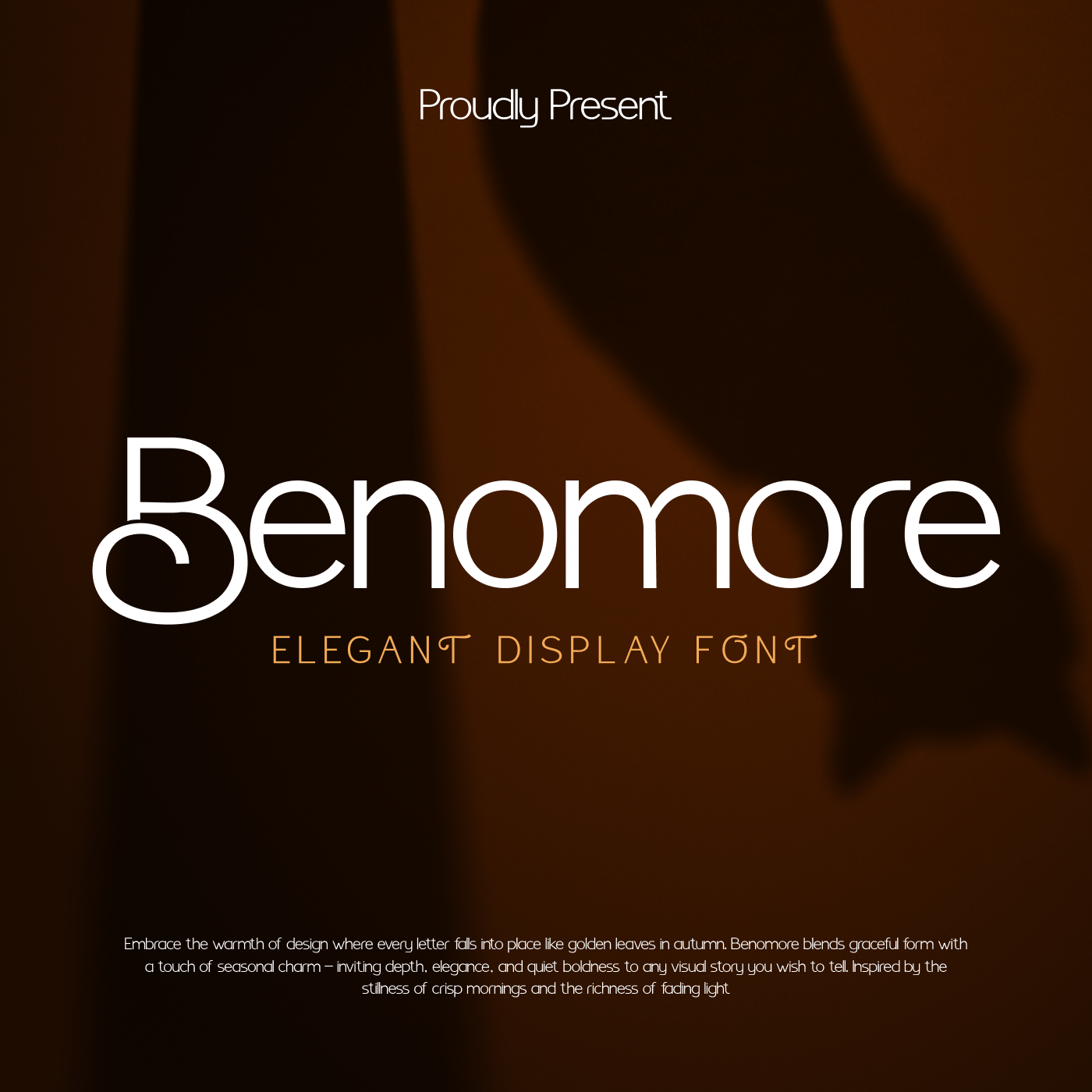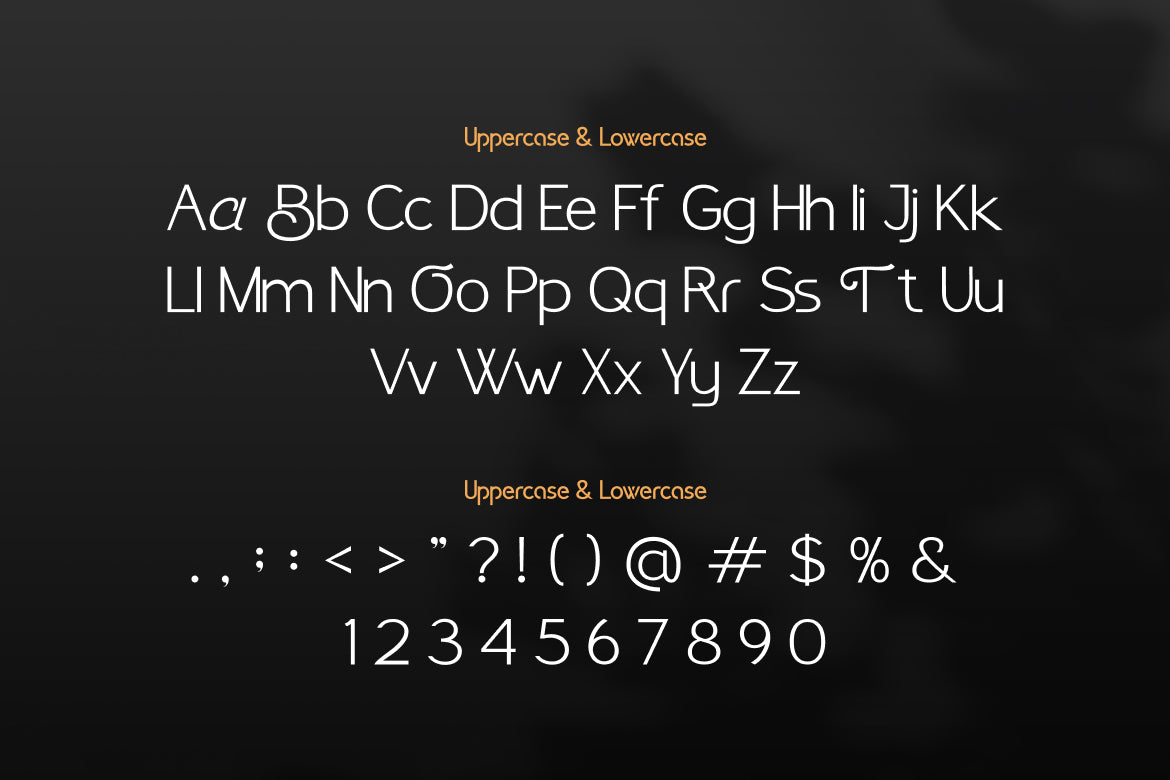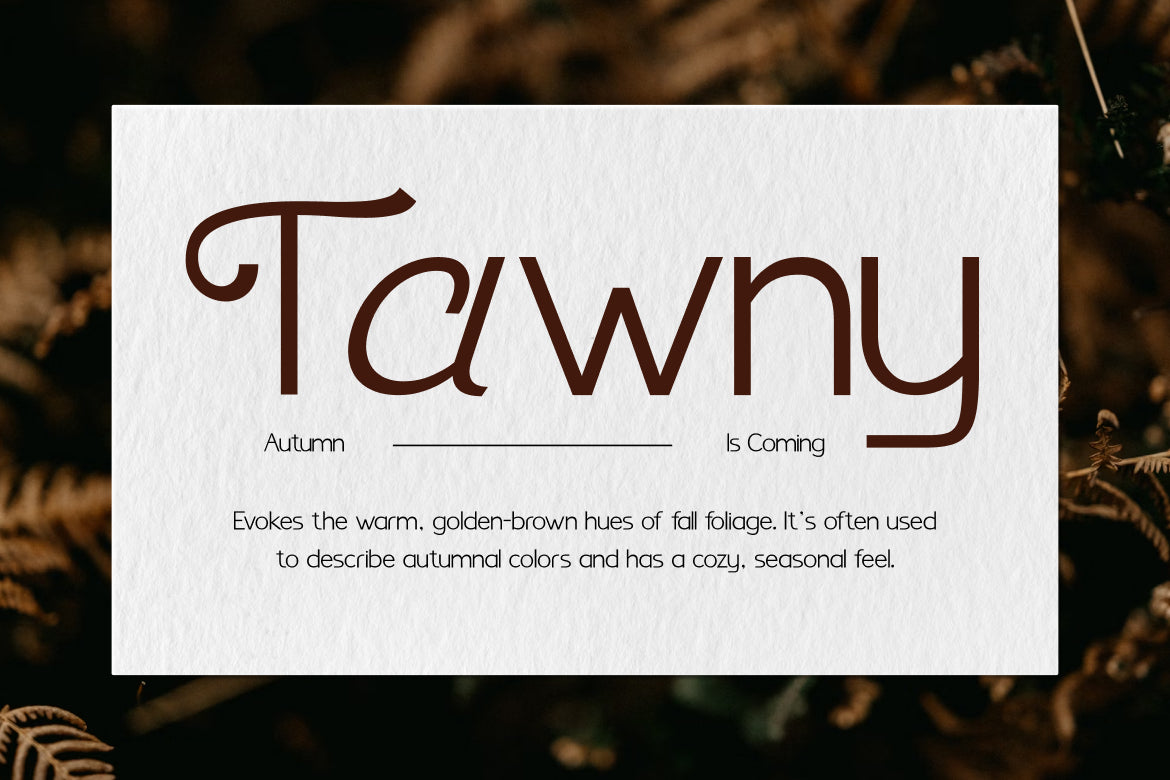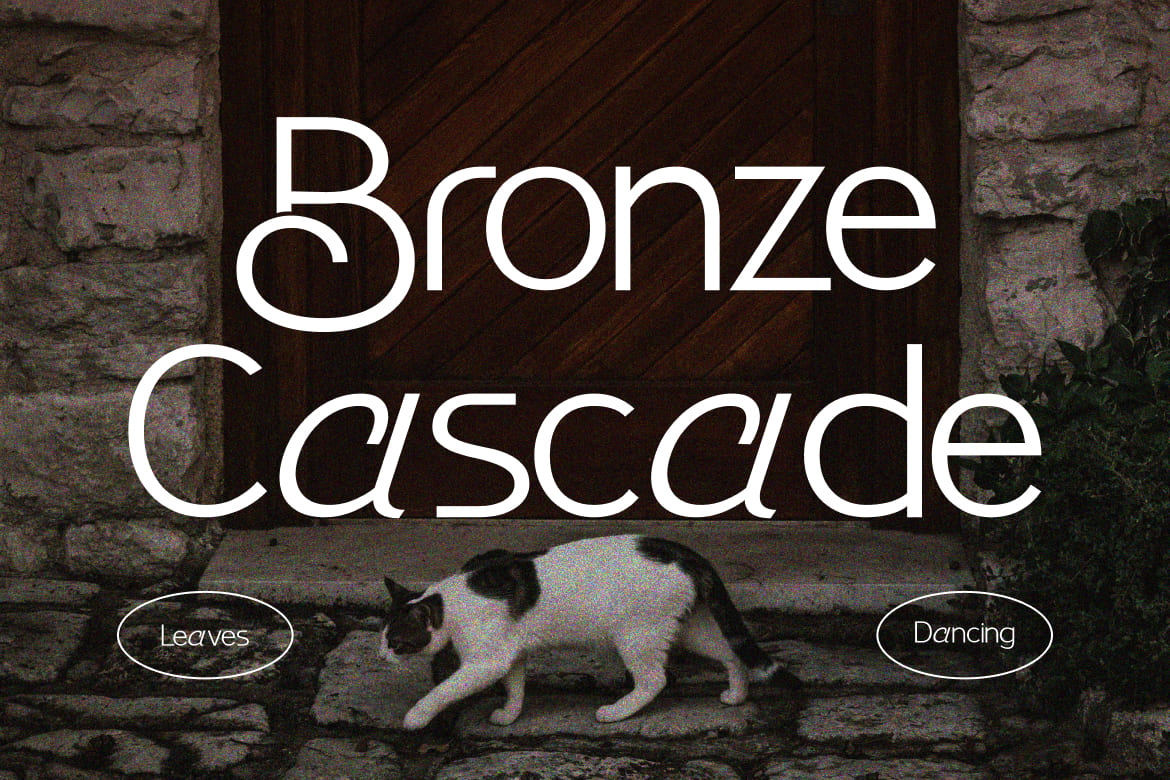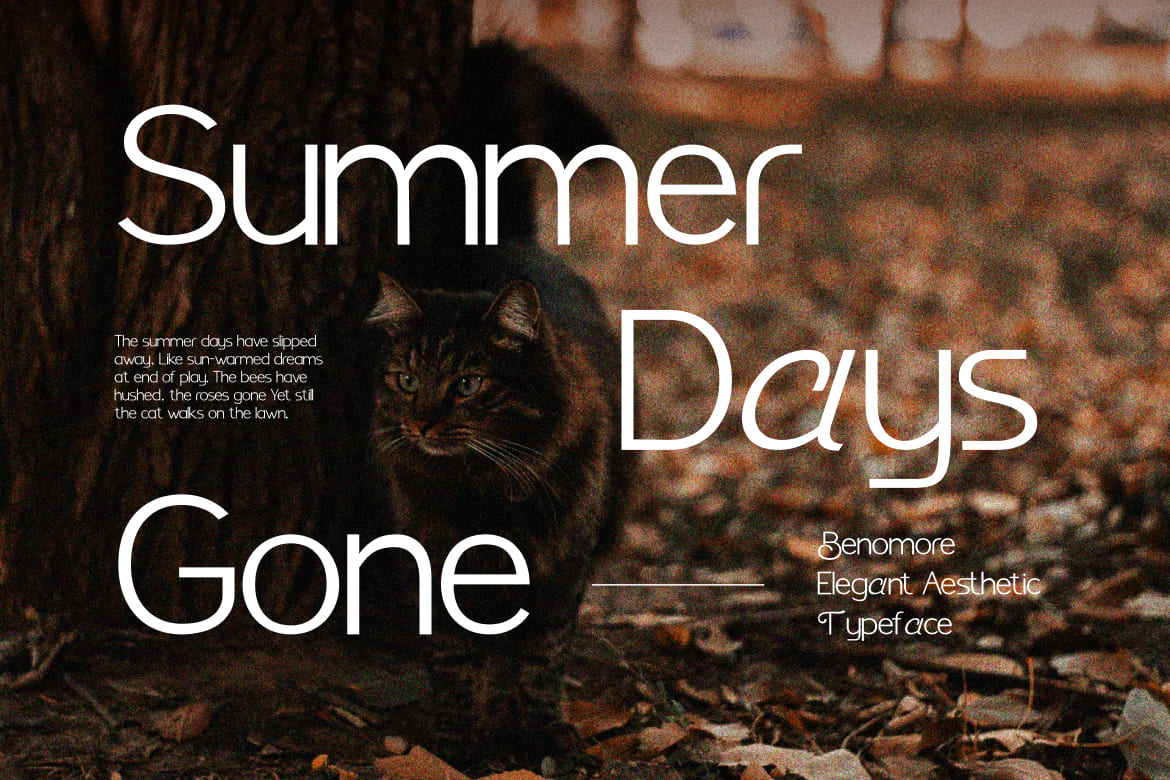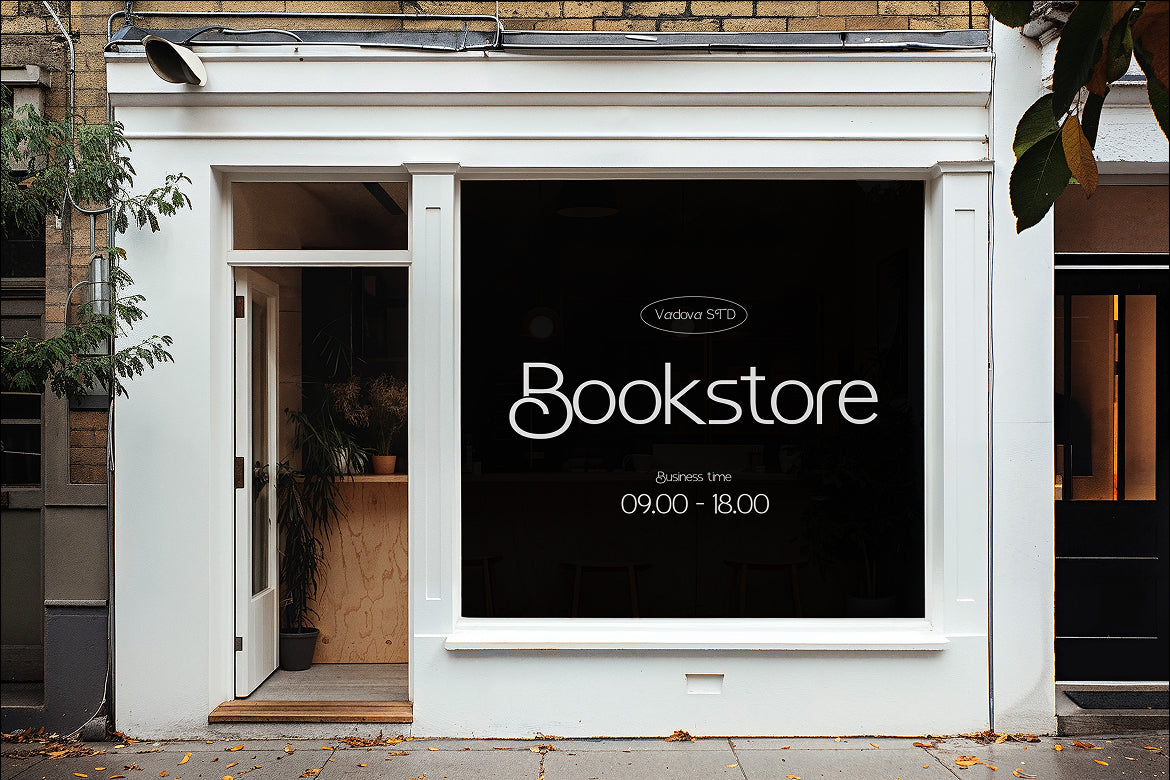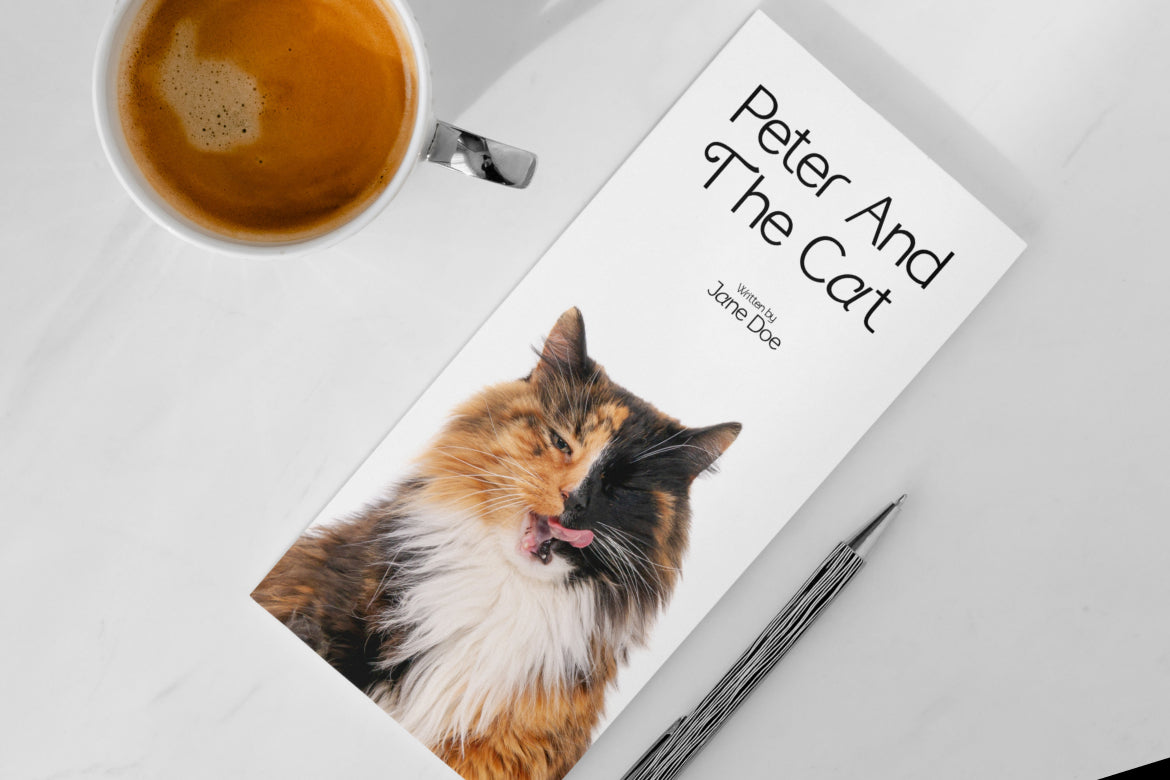
Benomore Elegant Display Font
Benomore is an elegant display font that exudes a warm, inviting, and quietly bold energy, reminiscent of autumn's gentle richness. It blends graceful forms with a touch of seasonal charm, perfect for creating inviting depth and sophisticated visuals. This font is ideally suited for fashion magazines, branding for luxury goods, seasonal campaigns, elegant invitations, editorial design, and any project aiming for a refined and artistic aesthetic. As a display font, it features unique and decorative letterforms that stand out, making it distinct from a standard sans-serif for body text. Its best use cases include high-impact headlines, distinctive logos, editorial spreads, sophisticated packaging, and emotional storytelling.
Suitable for luxury branding, fashion magazine layouts, elegant invitations, captivating social media graphics, and premium product packaging, as well as editorial headlines, book covers, wedding stationery, high-end advertising, art gallery promotions, exquisite logos, expressive posters, stylish web headers, film titles, beauty product branding, sophisticated event branding, design portfolios, mood boards, fine art prints, and exclusive marketing materials.
Includes Ligatures & Alternates
Benomore Elegant Display Font is a sophisticated typeface featuring unique letterforms designed for high-impact visuals. It includes uppercase and lowercase characters, ligatures, alternates, numerals, and punctuation, and is available in TTF, OTF, and WOFF formats with multilingual support.